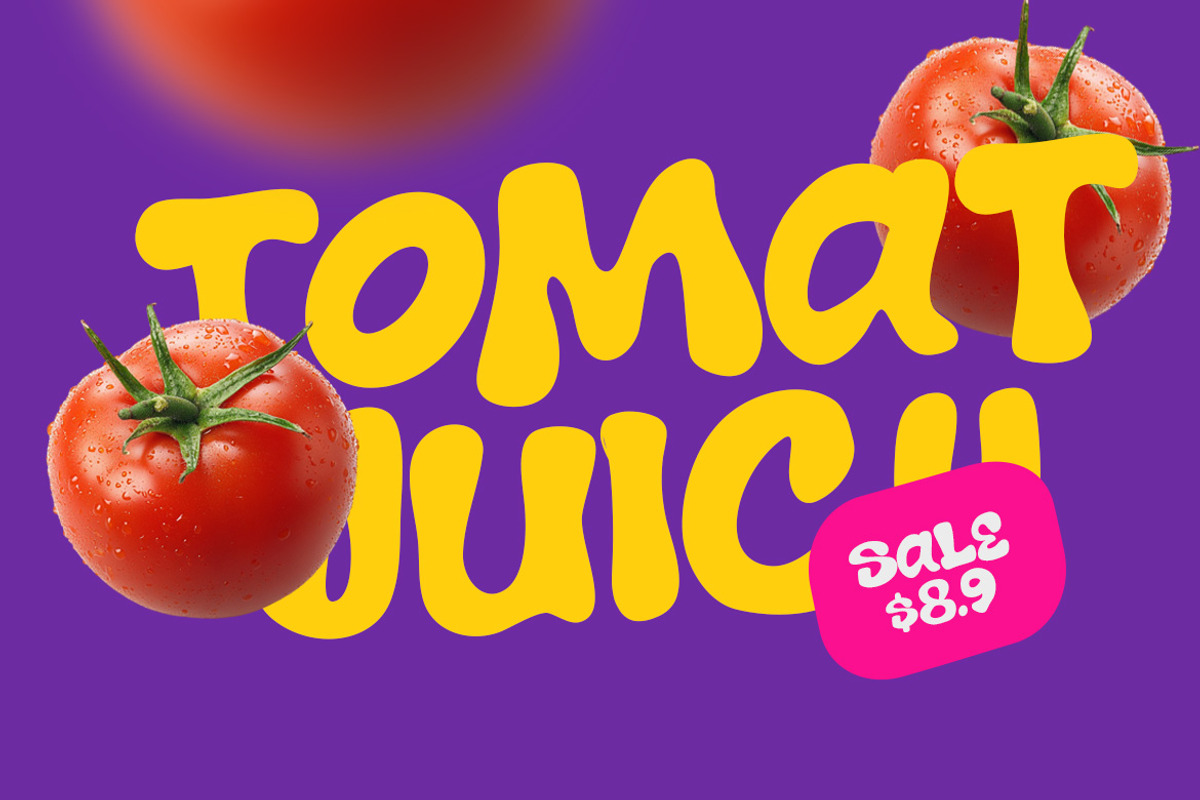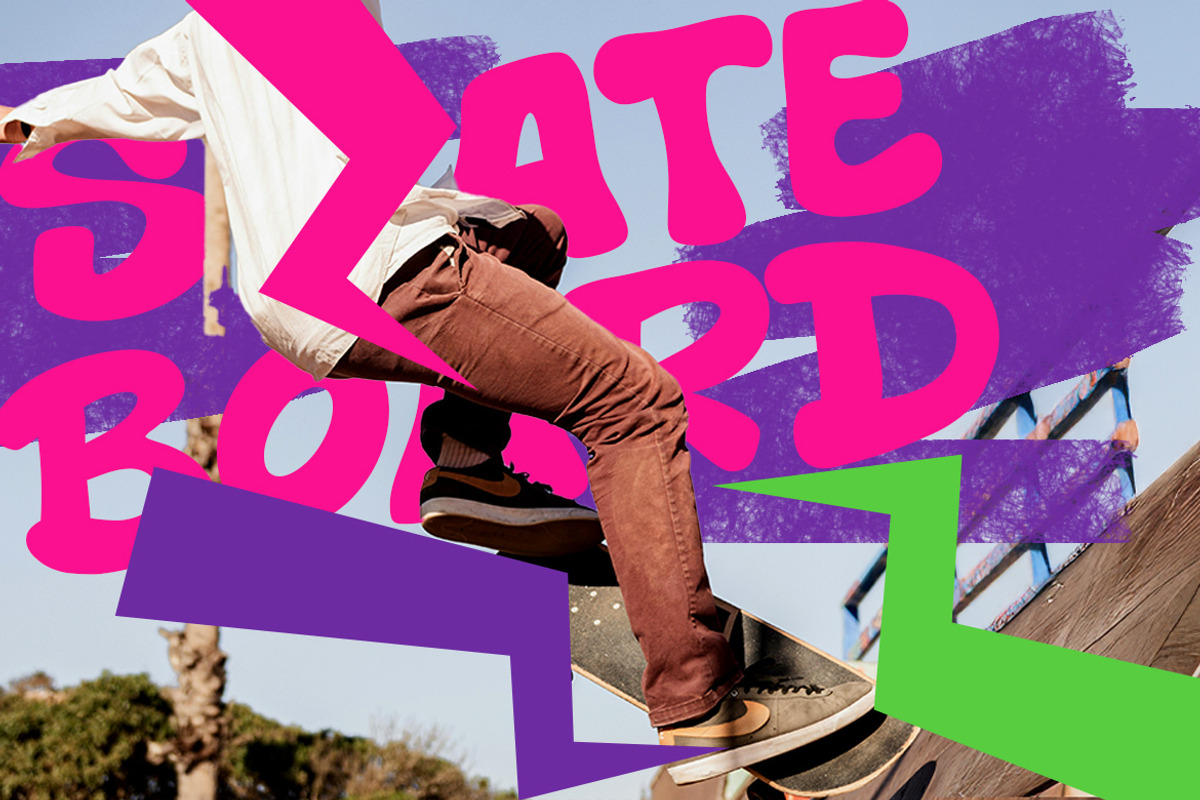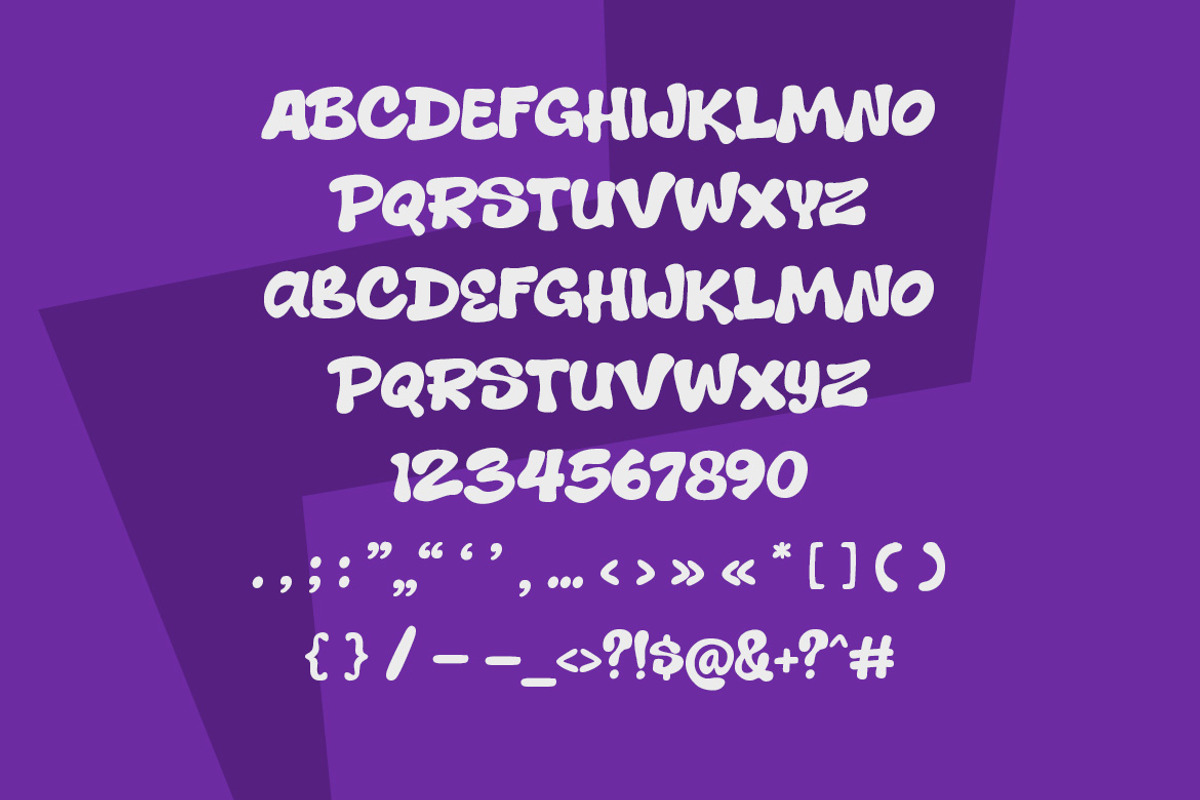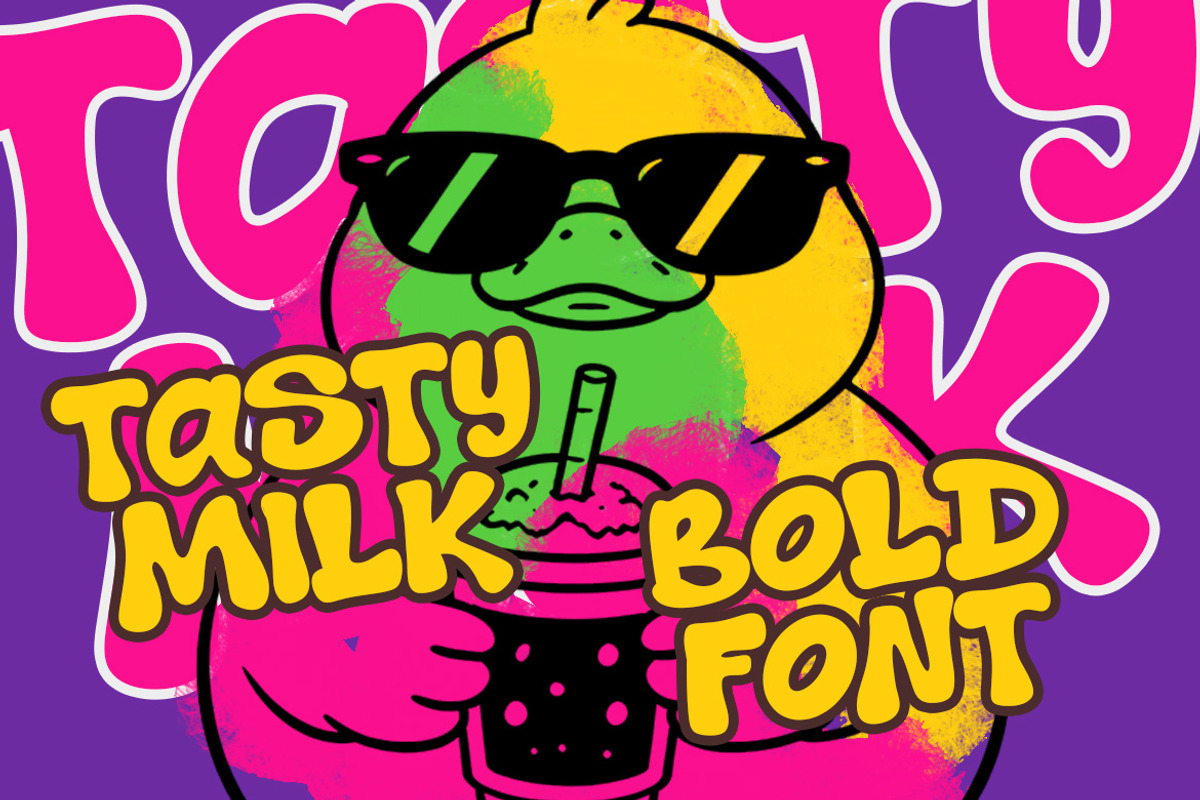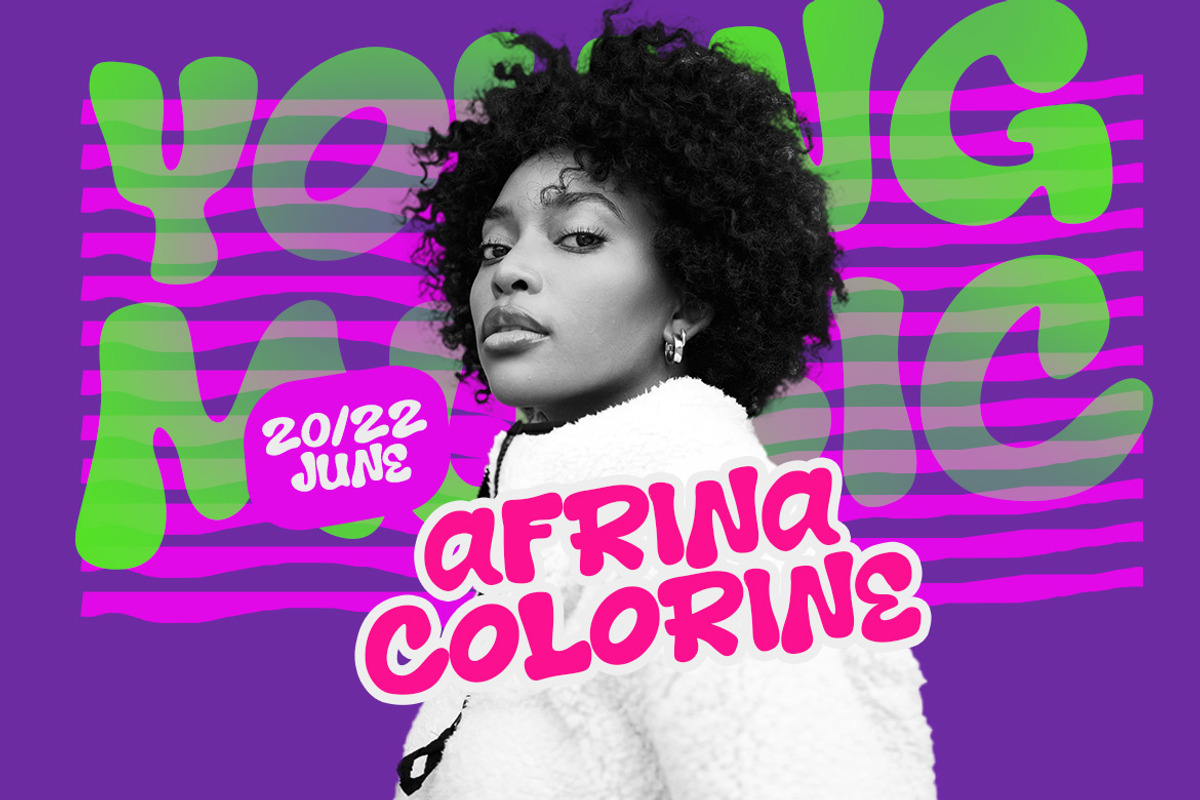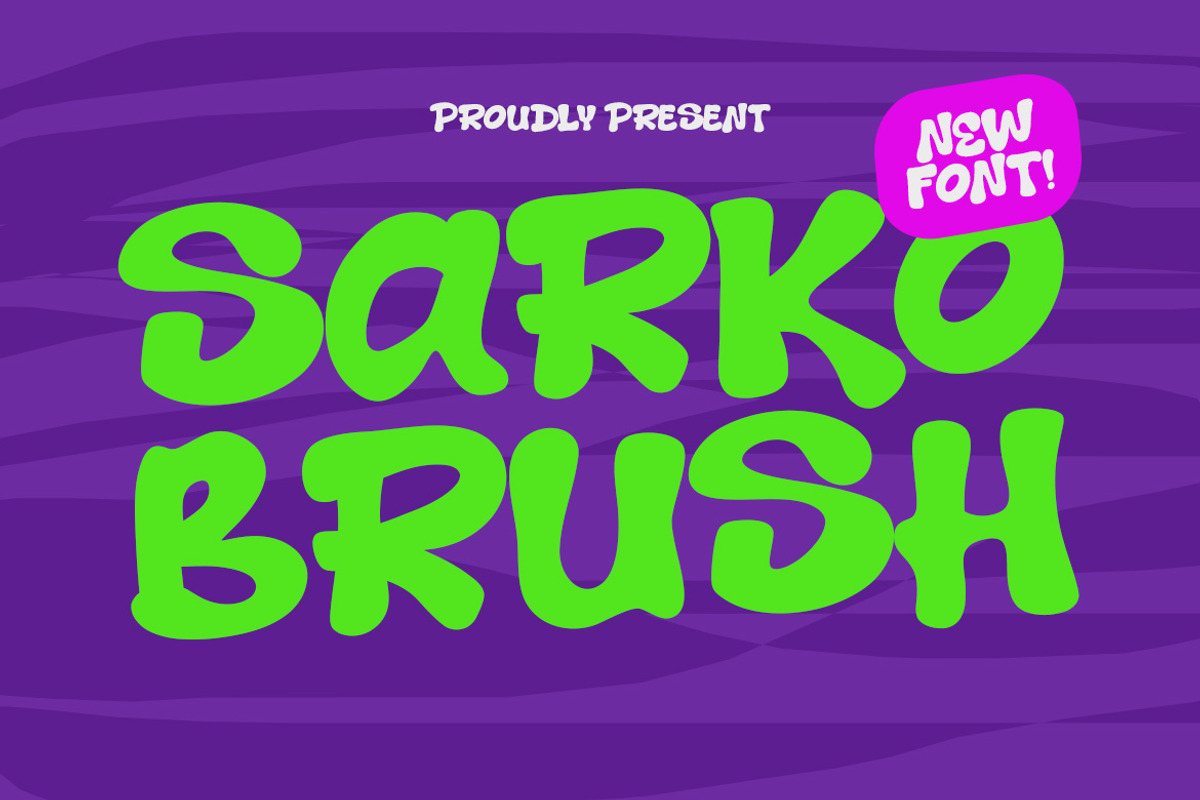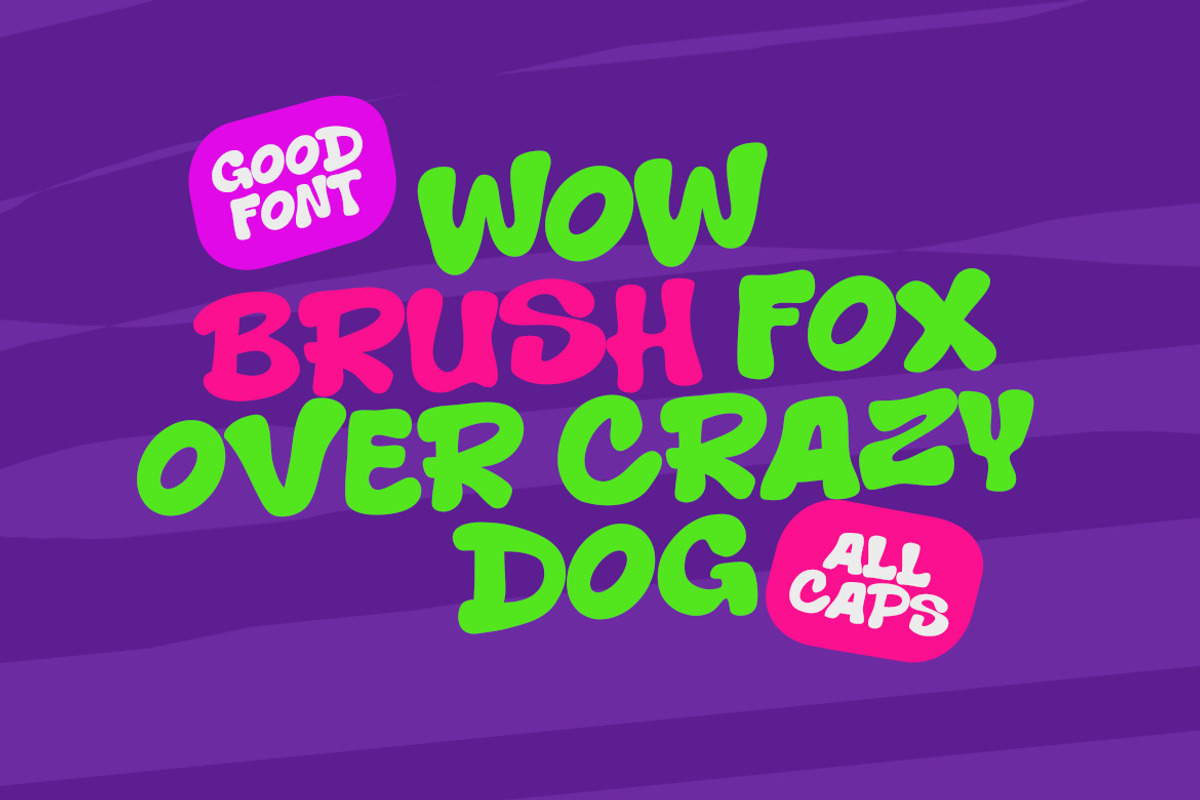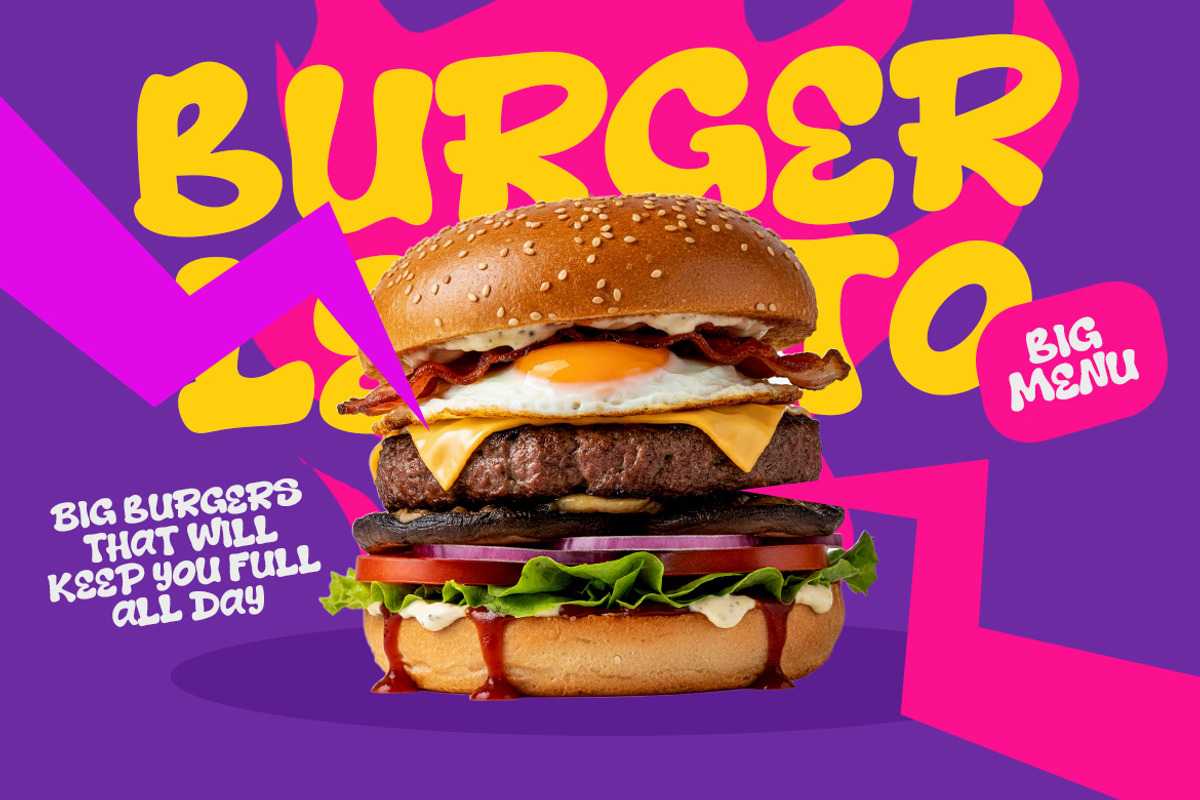
Sarko Brush
Sarko Brush is a bold and energetic display typeface characterized by its thick, rounded strokes and organic, hand-drawn feel. The letterforms exhibit a playful irregularity, with soft terminals and a heavy weight that commands attention. Its bouncy baseline and fluid curves create a sense of movement and fun, making it ideal for high-impact designs such as posters, social media graphics, and branding projects that require a vibrant, casual aesthetic. The lack of sharp corners and the uniform stroke width contribute to a friendly and approachable vibe, while the overall chunky appearance ensures excellent legibility in large-scale applications.
+ Uppercase (All Caps)
+ Numerals
+ Punctuation